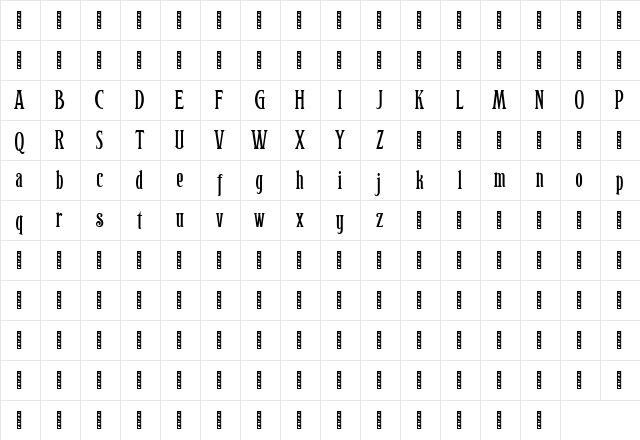
Hophus Roghus Regular
| Foundry | Bombastype |
| Designer | Bangkit Tri Setiadi & Amir Subqi Setiaji |
Design Context for Hophus Roghus Typeface
Hophus Roghus takes a measured approach to typography — its balanced proportions and neutral character make it a reliable workhorse for both digital and print work.